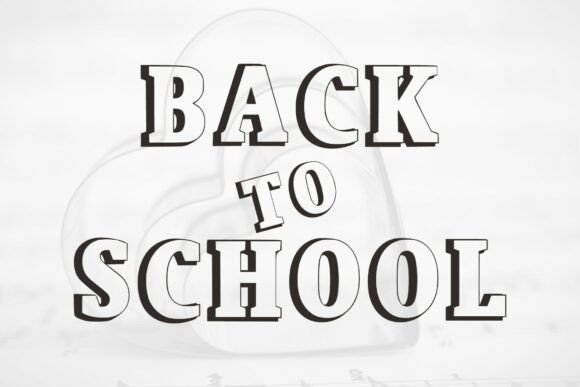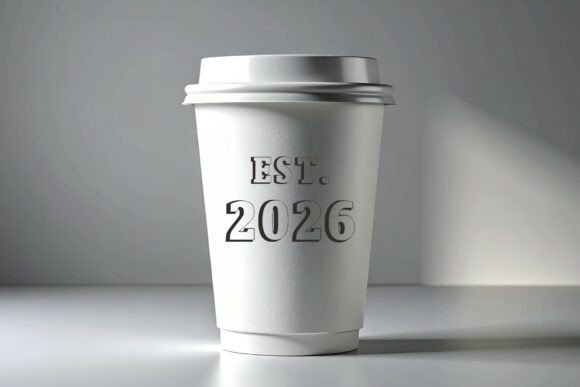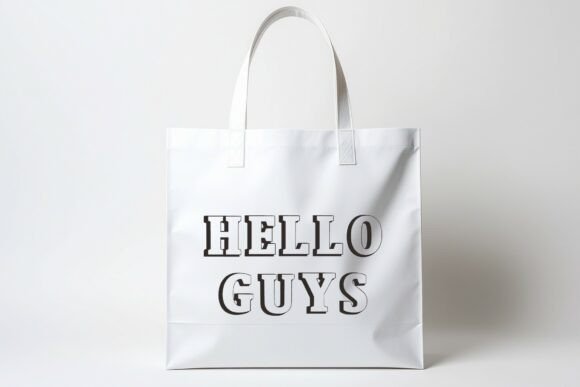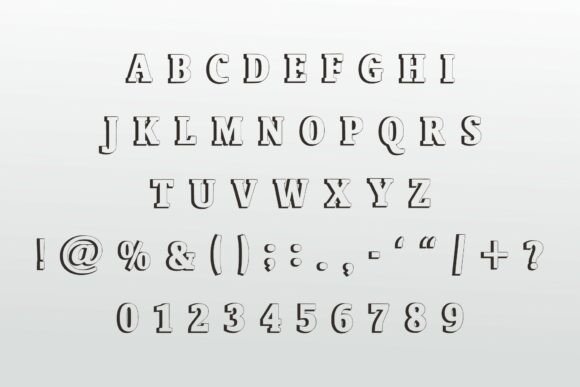
Unleashing the Timeless Elegance of Senior College Font
Have you ever been browsing through old yearbooks or vintage sports memorabilia, and suddenly, a font catches your eye? For many designers, it’s a moment of creative inspiration that sparks a desire to bring a piece of history into their latest project. For us, that moment came when we stumbled upon the classic Senior College Font. Its sturdy, dependable design is instantly recognizable and evokes the timeless spirit of academic achievement and varsity tradition.
As a valuable design resource, the Senior College Font is a high-quality addition to any creative project. Its strong shadow effect gives the letters a physical, carved presence that’s perfect for collegiate branding and sports-related designs. Whether you’re working on a university merchandise project or designing a sports team logo, this font is a must-have. And with its transparent background, you can easily enhance the design with traditional school colors like navy, maroon, and forest green.
Key Features of Senior College Font
- Unique and elegant design, making it suitable for educational institutions, academic projects, and other professional settings.
Honest Review: Senior College Font
I recently came across the Senior College Font and was excited to dive in and see what it had to offer. As a designer, I’m always on the lookout for high-quality design resources that can help elevate my creative projects.
One of the standout features of the Senior College Font is its versatility. It’s perfect for creating a sense of nostalgia and tradition, making it ideal for projects related to education or academia. The font is available for free download, which is a major plus in my book.
Here are some of the things that work well with the Senior College Font:
- ✨ Clean and classic design aesthetic
- ✨ Perfect for creating a sense of tradition and nostalgia
- ✨ Transparent background, making it easy to use on any design
That being said, there are a few limitations to be aware of:
- ⚠️ Limited character set, may not be suitable for complex text-based projects
- ⚠️ May not be as versatile as other fonts in certain design contexts
Overall, I’d say the Senior College Font is a solid addition to any designer’s toolkit. While it may have some limitations, its unique aesthetic and high-quality design make it a valuable resource for any creative project.
Tips for Getting the Most Out of Senior College Font
Use Senior College Font for free download and enjoy its transparent background, making it ideal for design resources that require a clean and modern look. Experiment with different font sizes and colors to add depth and visual interest to your design.
Senior College Font is a versatile design resource that can be used for a variety of creative projects, including academic posters, social media graphics, and business presentations. Its high quality and transparent background make it a great addition to any design.